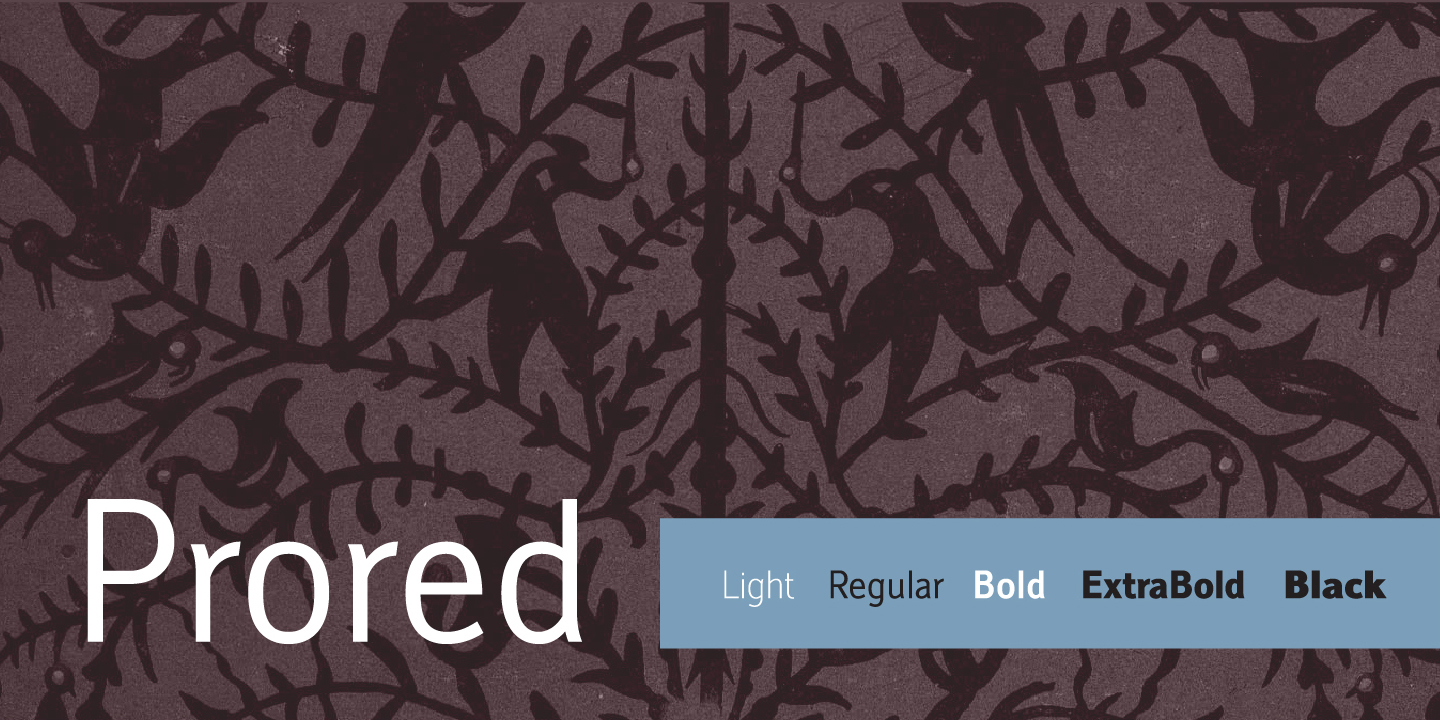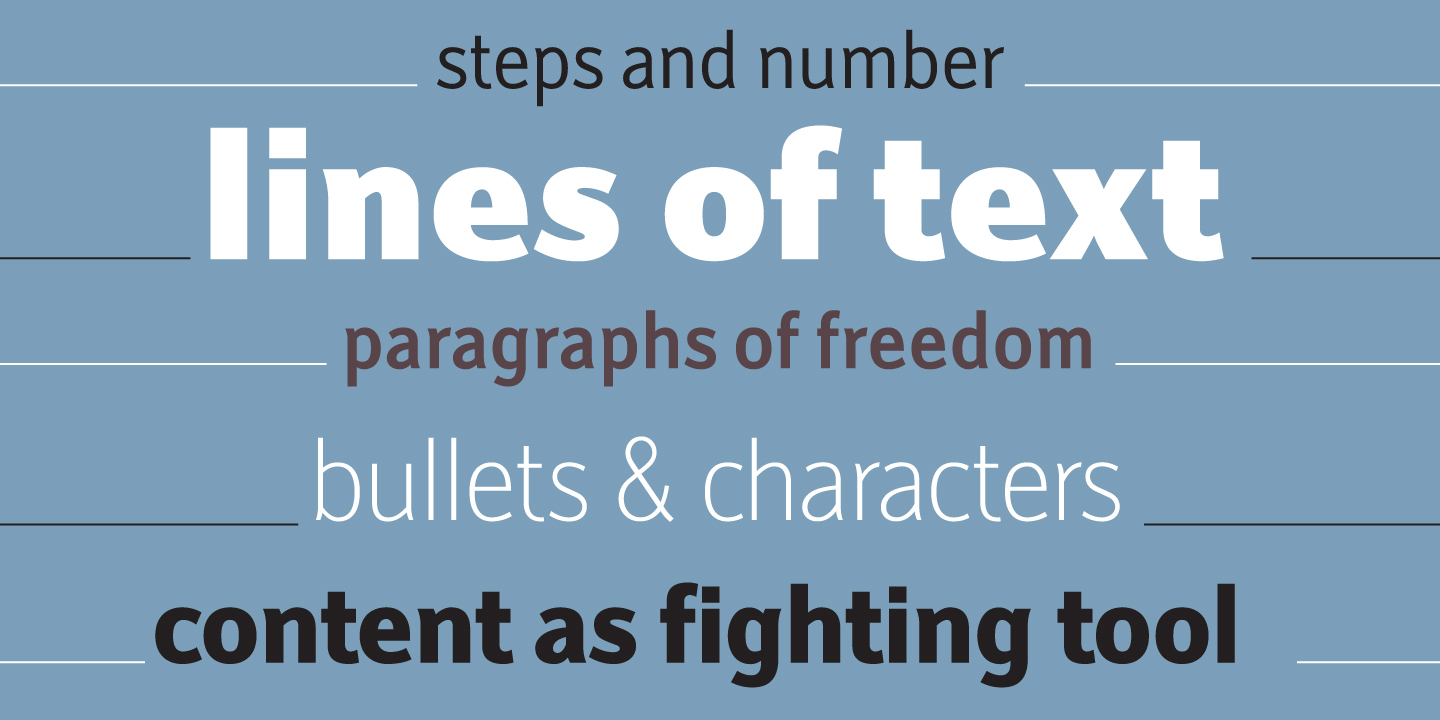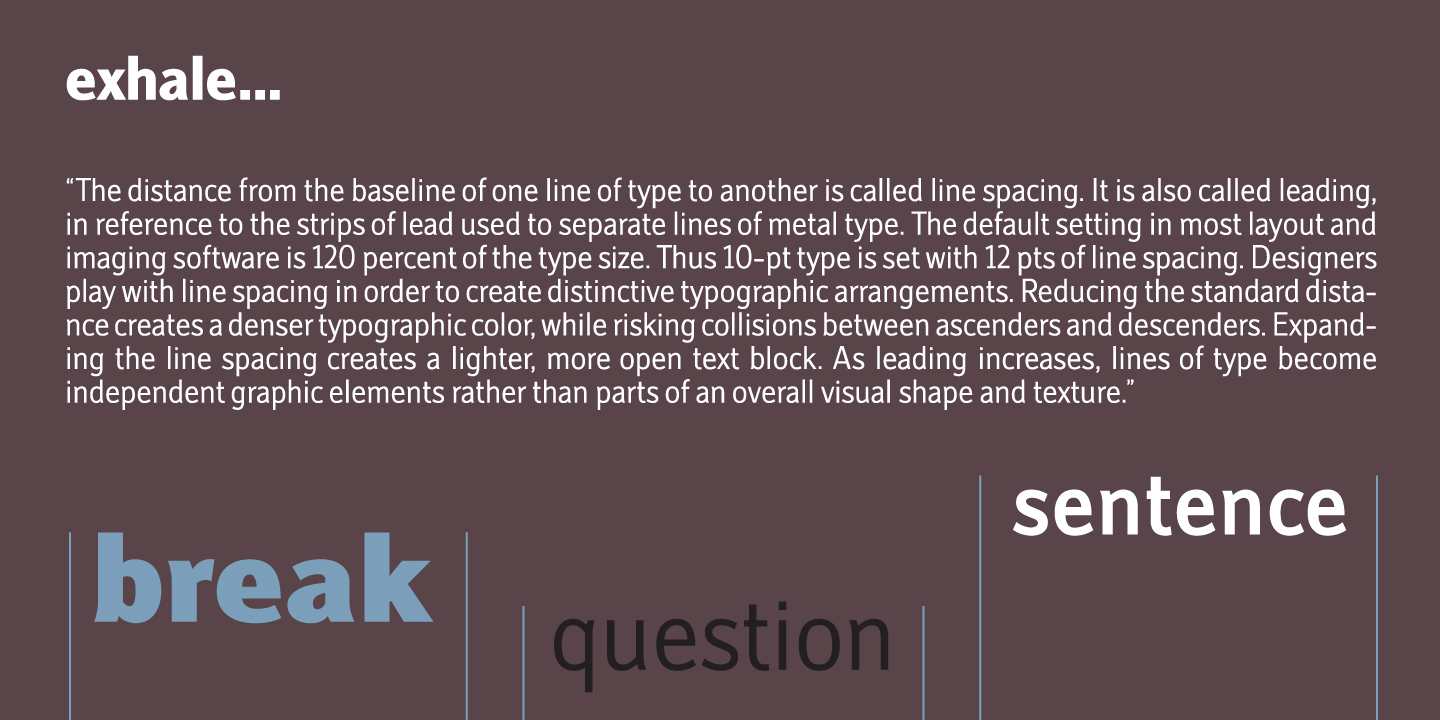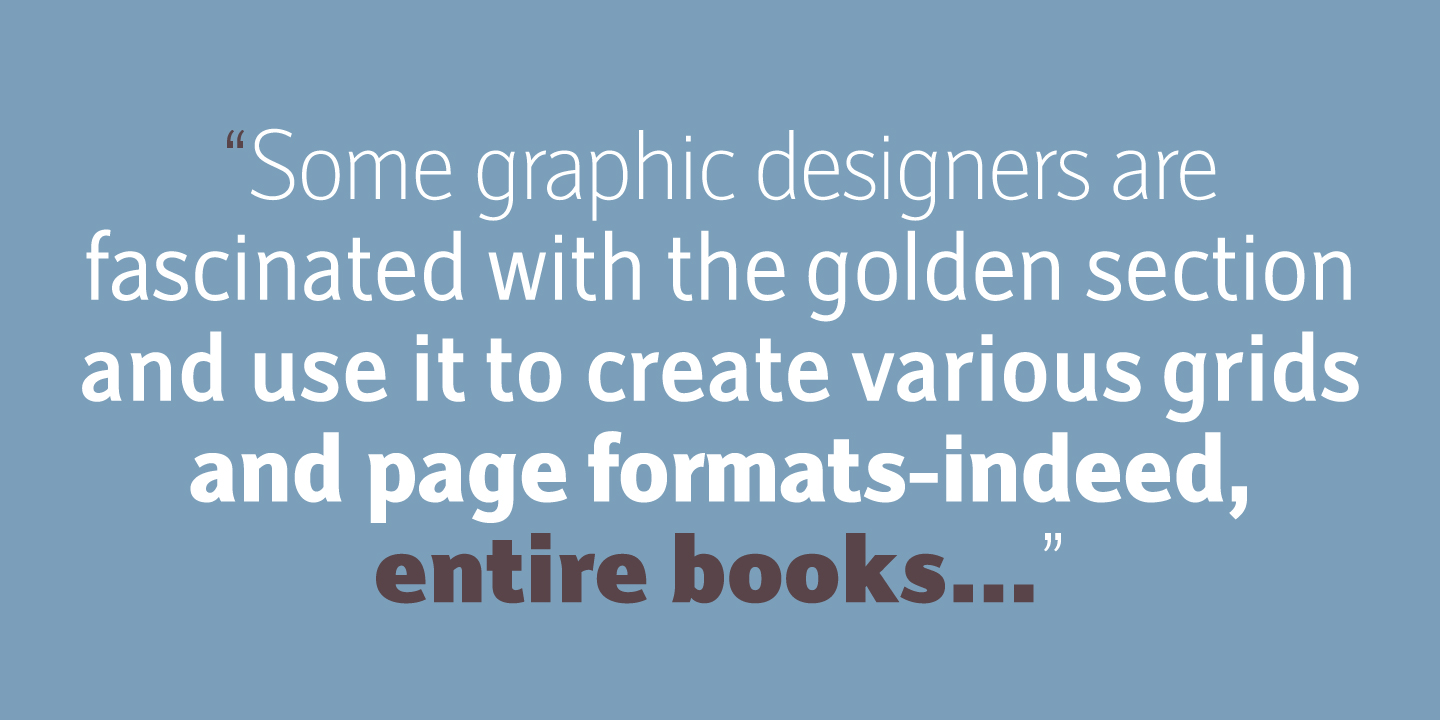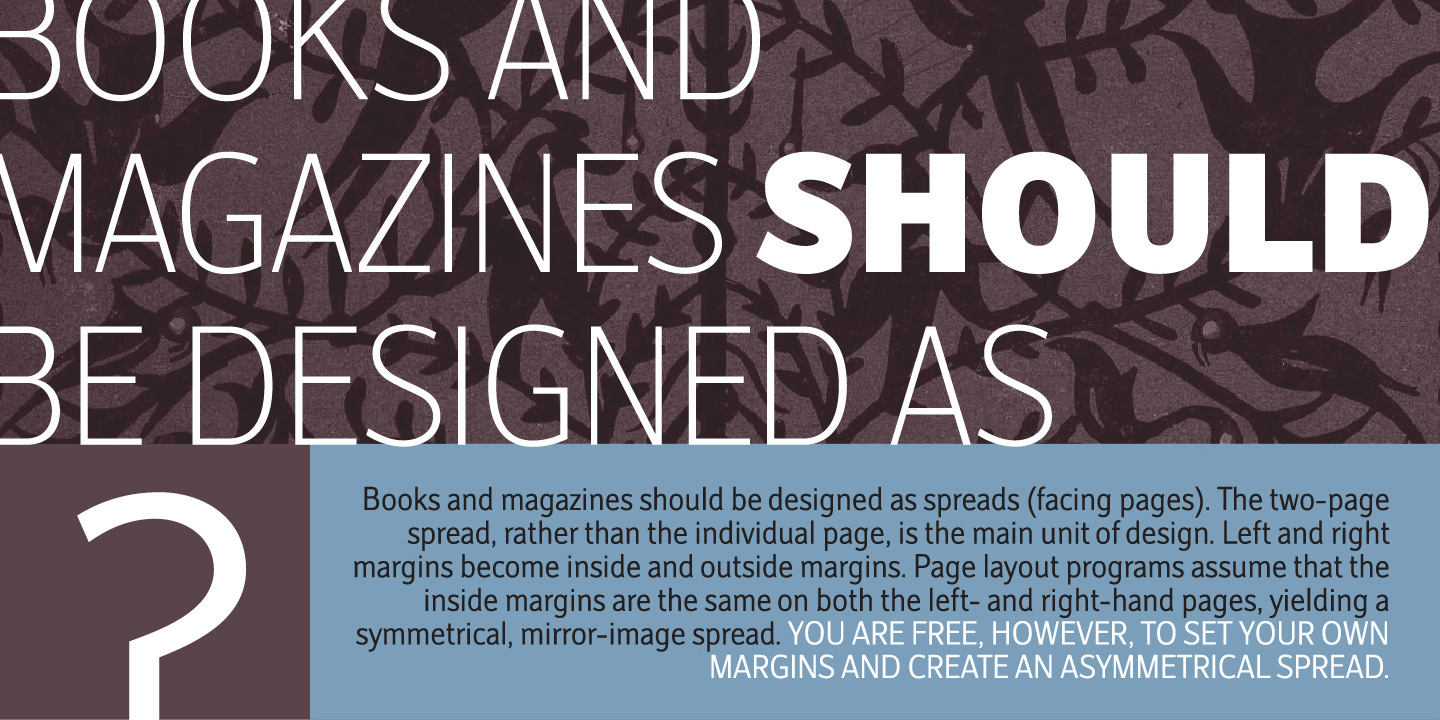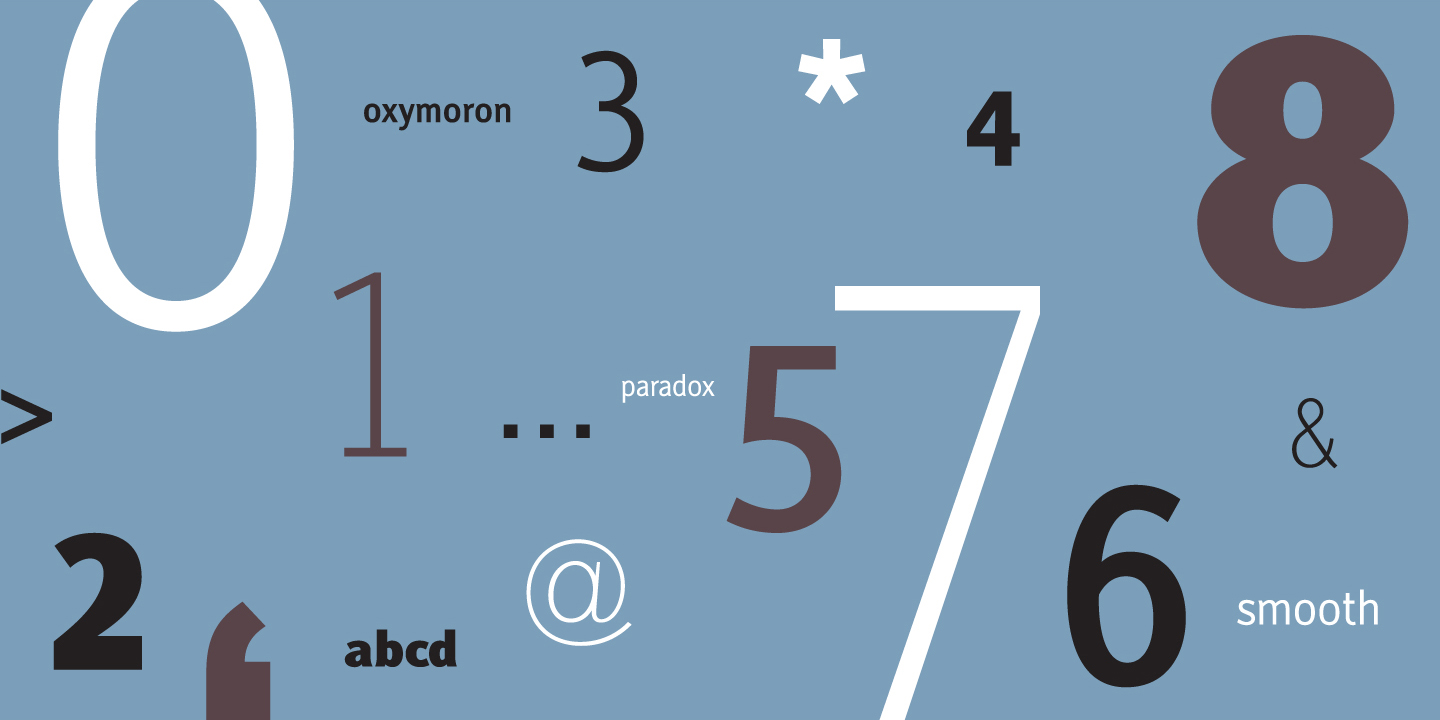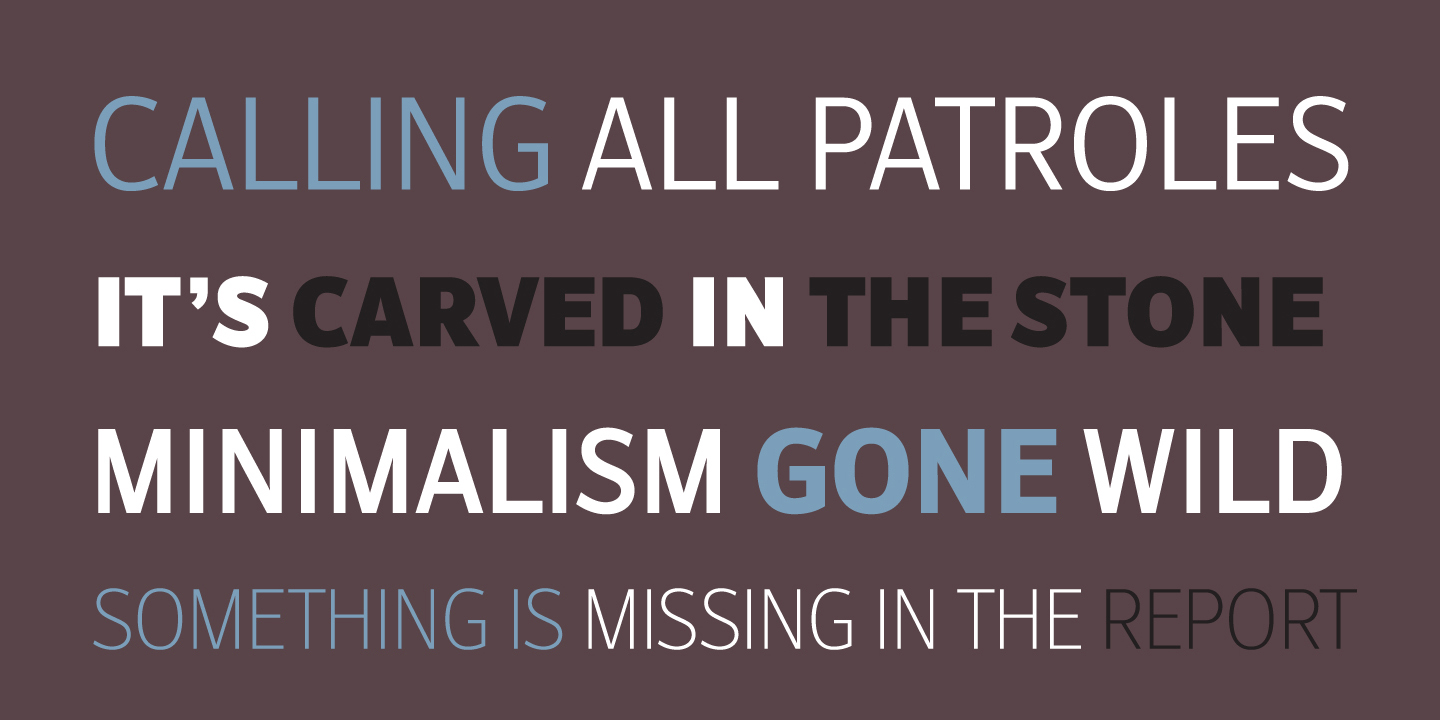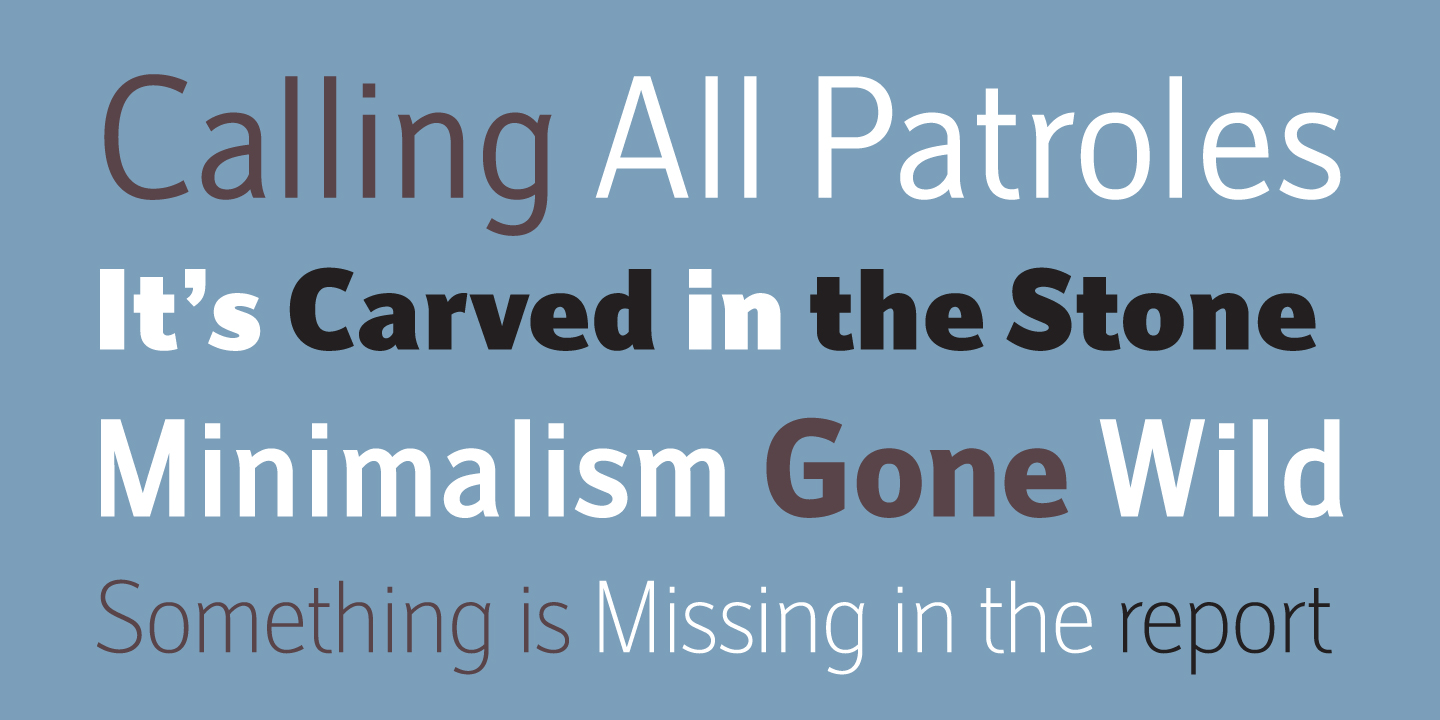
Prored is an sans serif typeface that contains 5 weights – Light, Regular, Bold, ExtraBold and Black. It is small and compact font family with own characteristic expression, constructed to be safe choice for all kinds of typographic tasks. With specific curved endings that are adhered on baseline, Prored includes tiny note of singularity – just enough to make it’s own identity recognizable and catchy. Taller x-height gives an afterimage of a bit narrowed look, but with rational proportions and well balanced weights, 5 of them are really sufficient and capable to handle extreme typographic issues. Especially charming is Black which can be used also as display typeface in situations where elegant solutions are required in combination with stronger visibility. Beside Central Europe, Prored also contains glyphs for Turkish and Baltic languages. Highly neutral impression recommends Prored as an excellent choice for branding campaigns or new identities. Recommended for use in: branding campaigns, identities, editorial publications, packages, web design, as web font and many more.